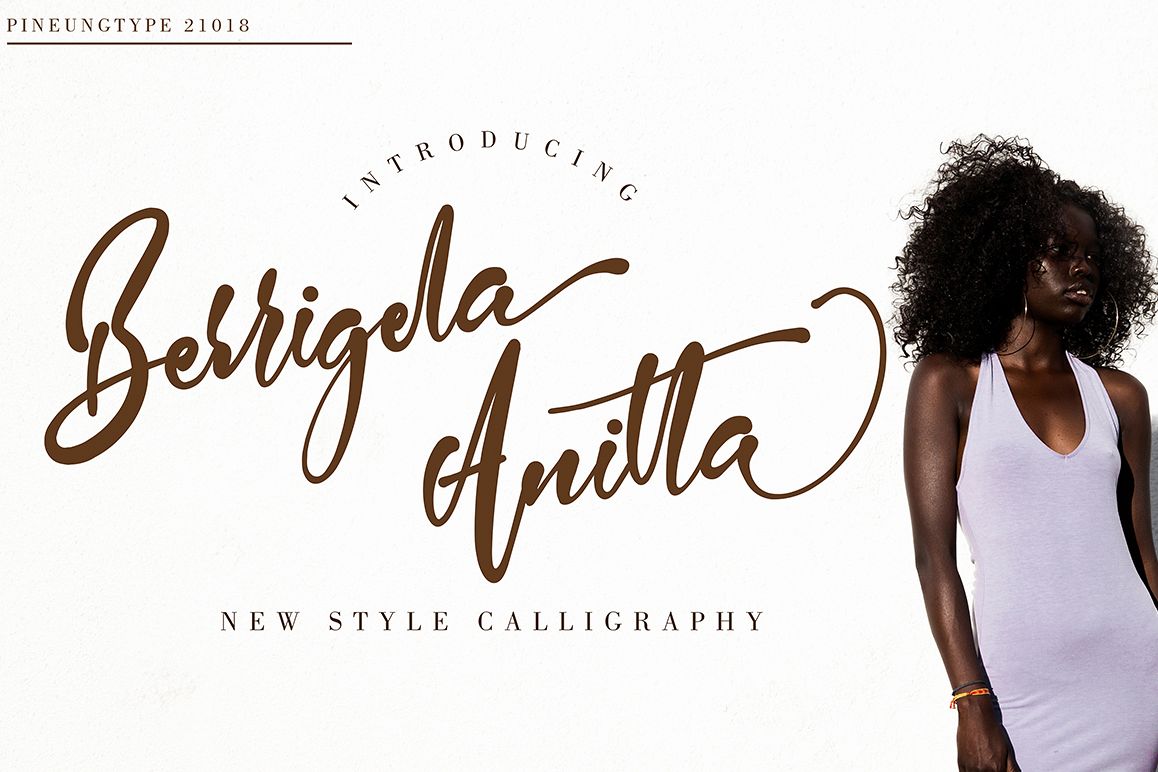
Berrigela Anitta
Berrigela Anitta script font font with new style, this font will perfect for many different project ex: quotes, logo, blog header, poster, banding, fashion, apparel, letter, invitation, stationery, etc...